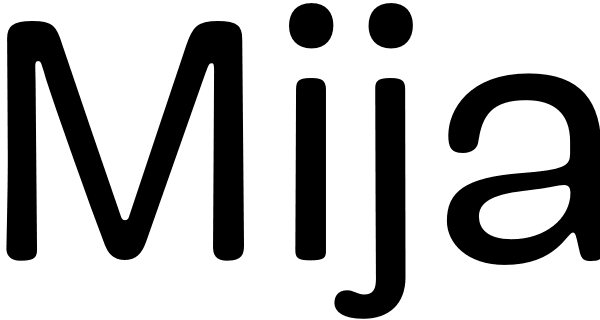
Mija
Mija is a grotesk vernacular handmade typeface whose imperfections make it perfect. It is a fresh hand-painted display face with a warm and organic feel. This full-of-ink-traps typeface is inspired by local vernacular signs. Mija looks good at both...